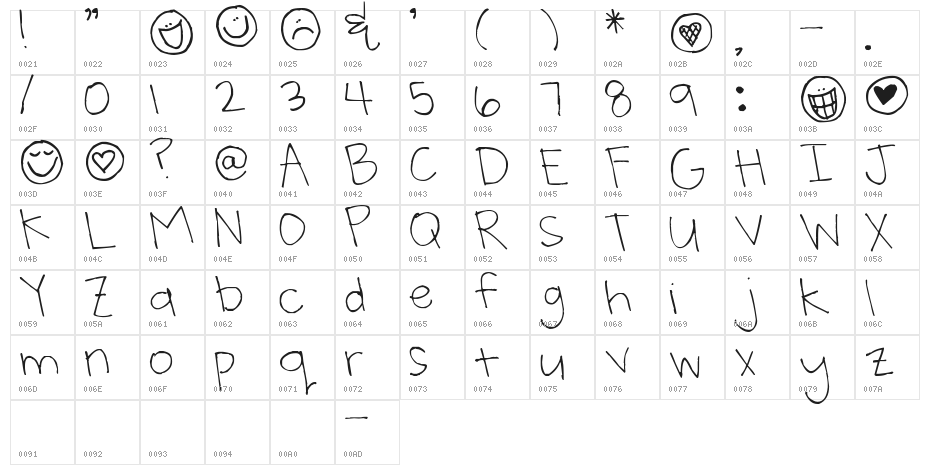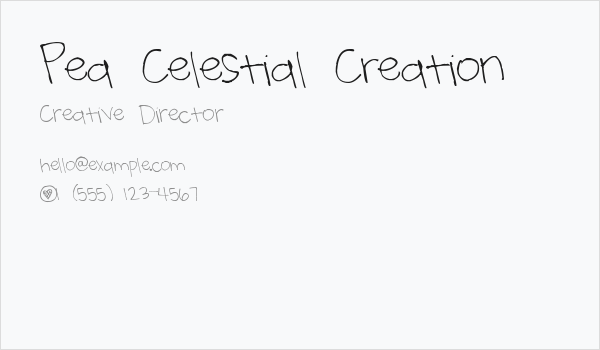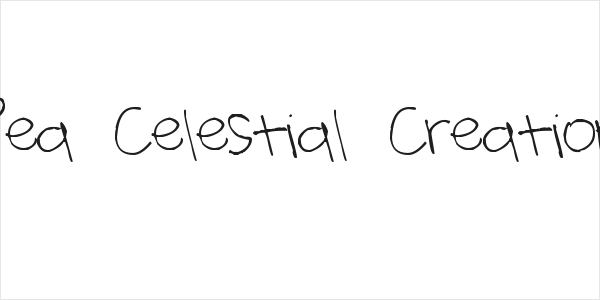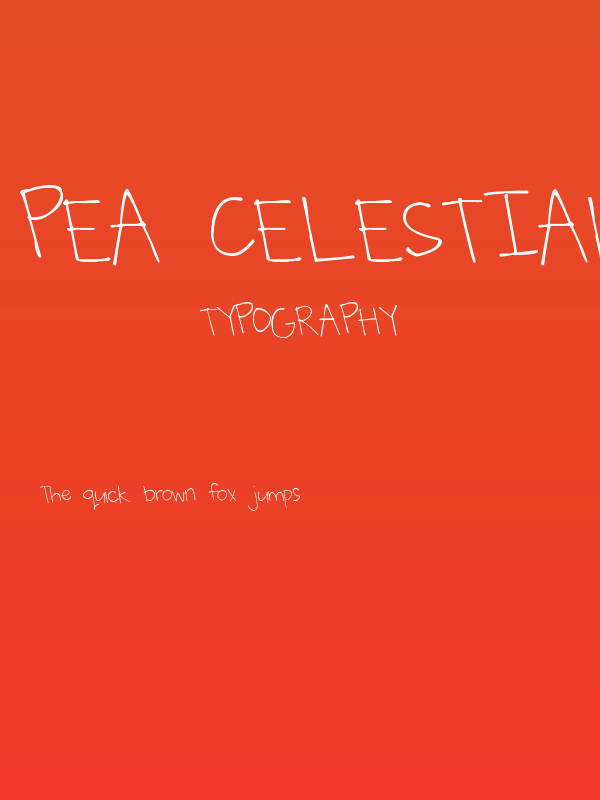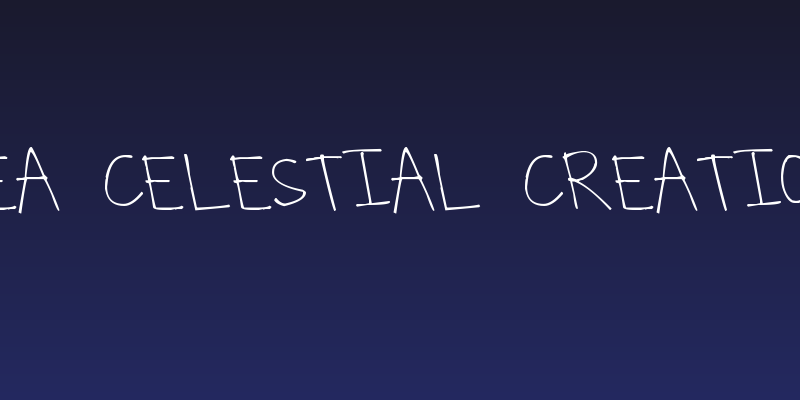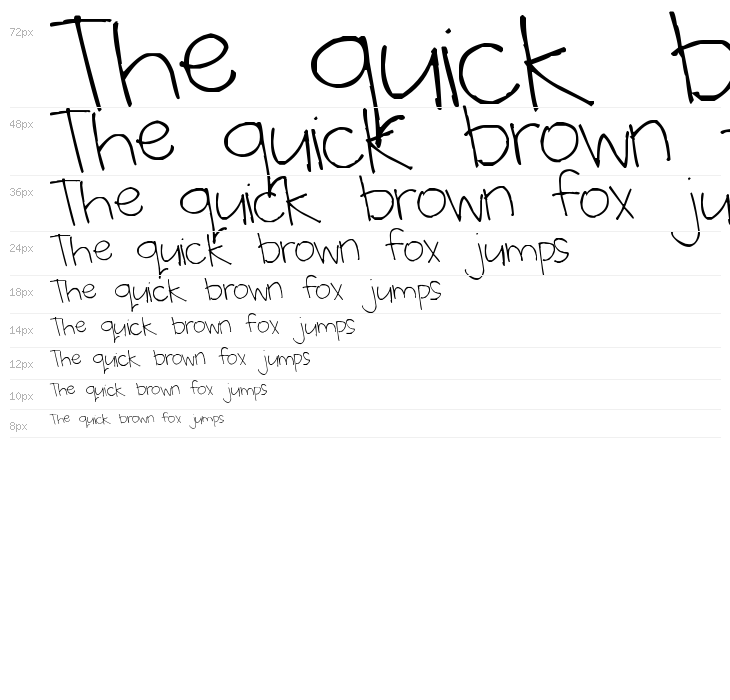
Pea Celestial Creation Font
Pea Celestial Creation Description
This font features a playful, handwritten style with a casual and informal appearance. The letters are slightly irregular, giving it a whimsical and personal touch. The uppercase and lowercase characters maintain a consistent style, with rounded edges and a smooth flow. Numbers and special characters are designed to match the overall playful theme, adding to its charm. The font's light strokes and open forms make it easy to read while retaining a unique personality, perfect for creative and fun projects.
| Proposed Projects | Ideal for greeting cards, children's books, playful branding, and informal invitations. |